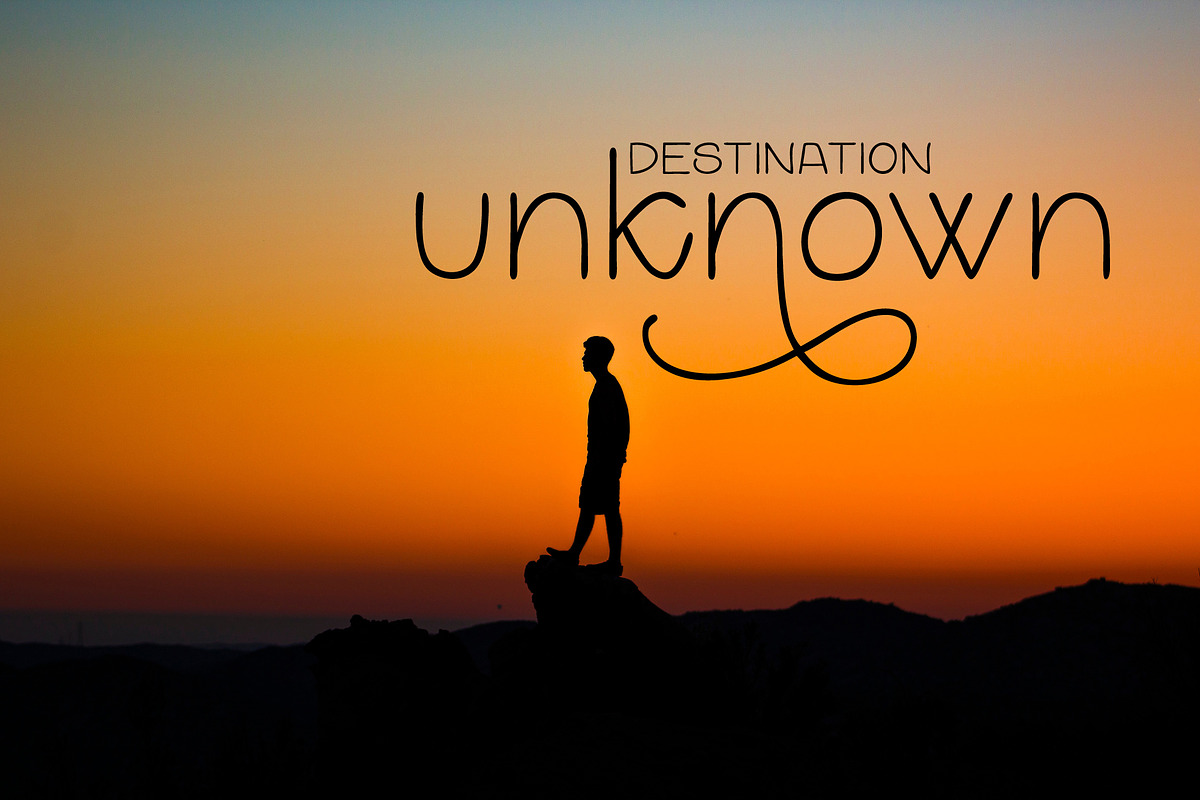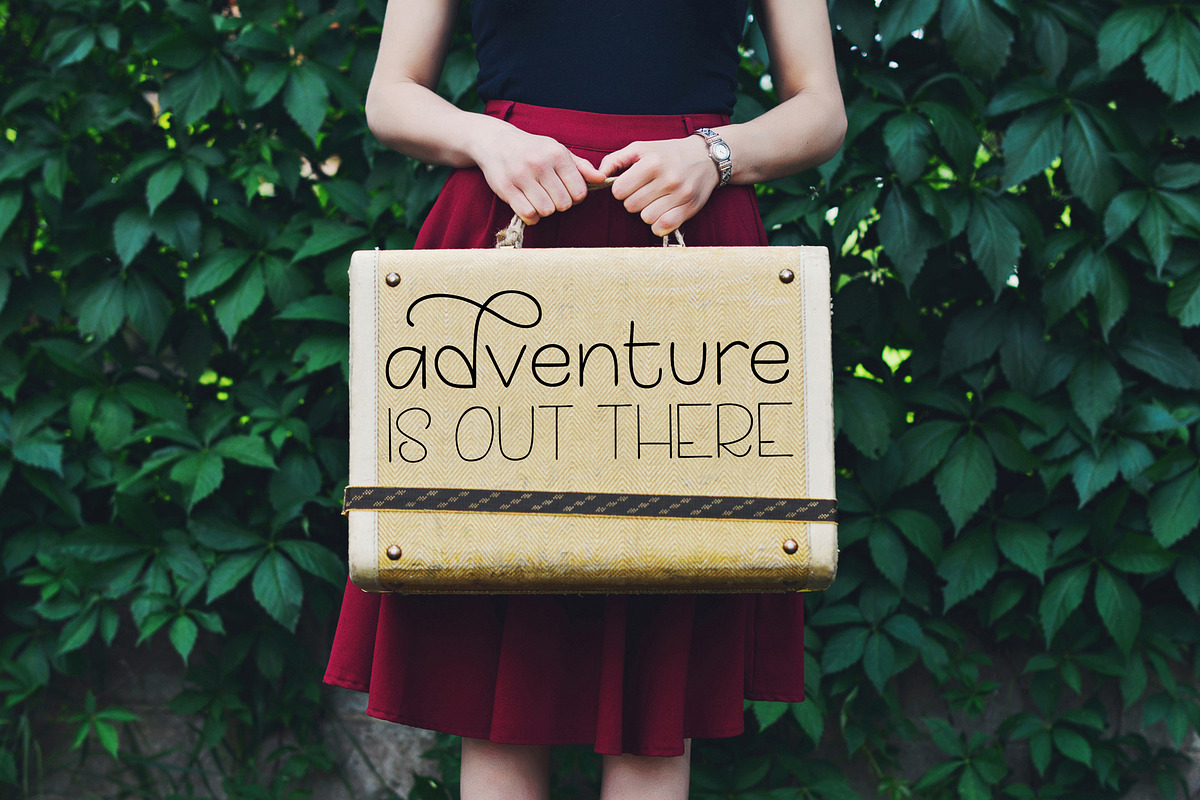
Stand and Roam font duo
Stand and Roam font duo by HowJoyful is a font selected for branding, posters, packaging, typography.
- Stand and Roam is a hand-lettered font duo that includes 2 sets of uppercase letters (regular and condensed) as well as a small all caps and
- stylistic alternates, swashes, and ligatures
Stand and Roam font duo by HowJoyful fits naturally into Branding, posters, packaging, typography.